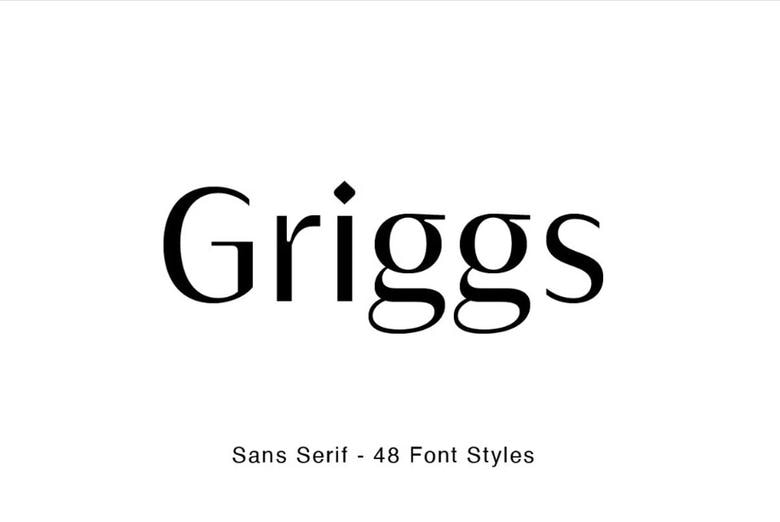
Griggs Font Family
Griggs Font is a high contrast, inktraps, sharp form, and clean cuts, to convey the impression of opulence, elegance with a distinctive look. Each typeface contains with a warm personality and contemporary look. With different stylistic sets, you can choose the best-desired result for your design.
You can change the feel of your design from more delicate, to bold to its sharpest most style. It’s a brilliant choice for branding, identity design, editorial design, logo design, display and packaging design etc.
Griggs Sans Serif Font Family